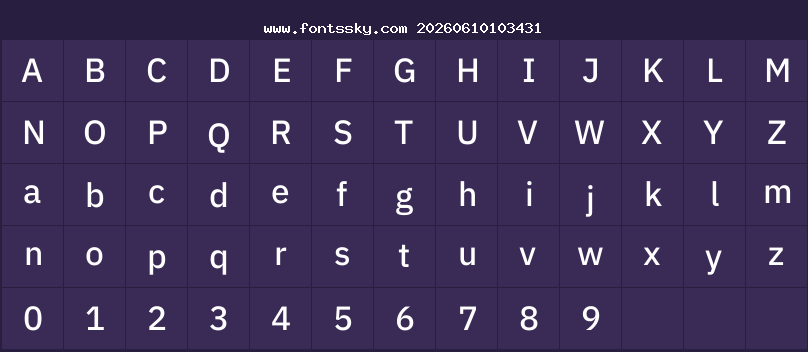
• Font Name: 械黑 GB Medium
• Full Font Name: Flex Sans GB Medium
About 械黑 GB Medium.ttf
械黑 GB Medium.ttf is a modern, elegant sans-serif font designed for ultimate readability and visual harmony. Perfect for branding, headlines, web design, and print materials.